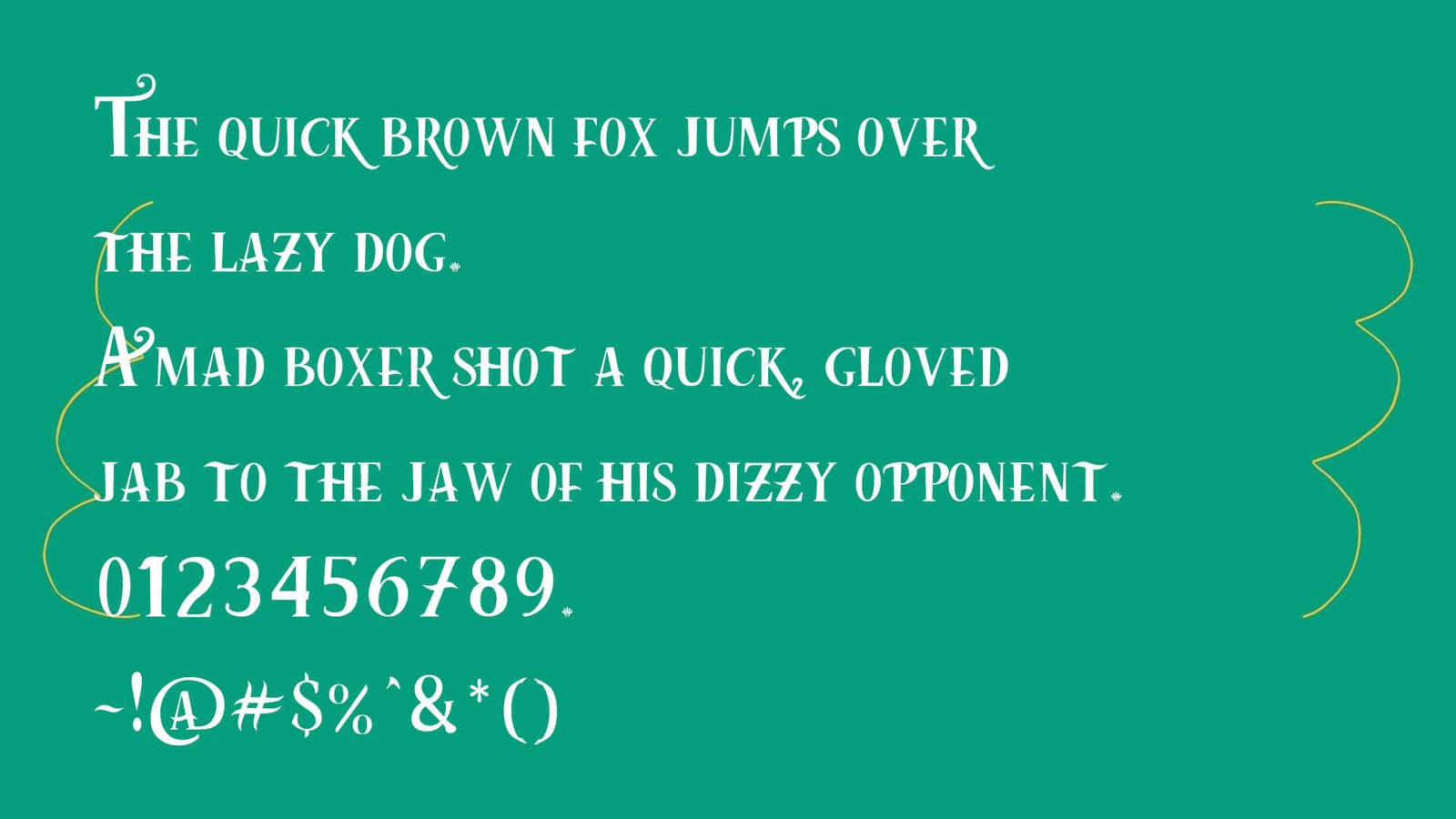
The Little Mermaid Font is a Serif type created by Scott Simpson. This textured style is inspired by the American Fantasy children’s movie The Little Mermaid, directed by Ron Clements and John Musker. The movie was released on November 17, 1989, by Walt Disney Pictures. The typeface serves as a logotype.
This textured style contains high contrast texture with rounded and smooth edges and it contains more than 150 total sets of characters. With so many characters this typeface can use almost in every type of design and project. On the important information that this typeface is a demo version so you can use this typeface for personal use.
Little Mermaid Font